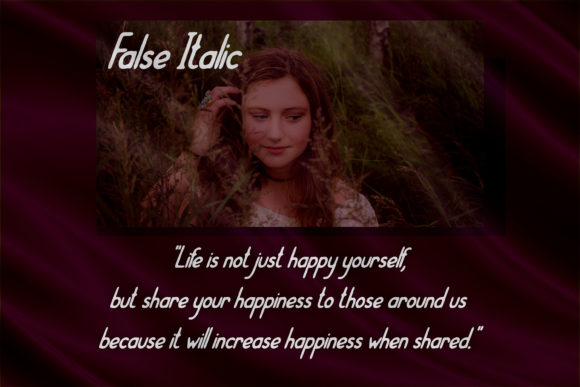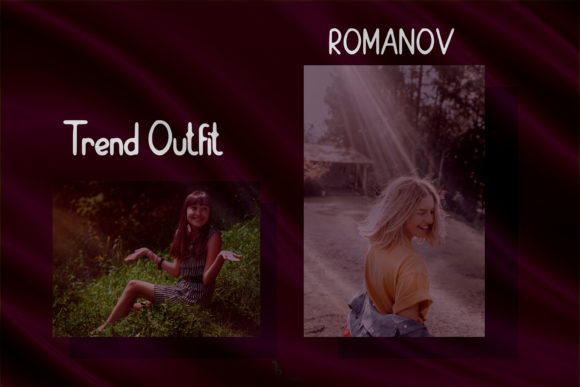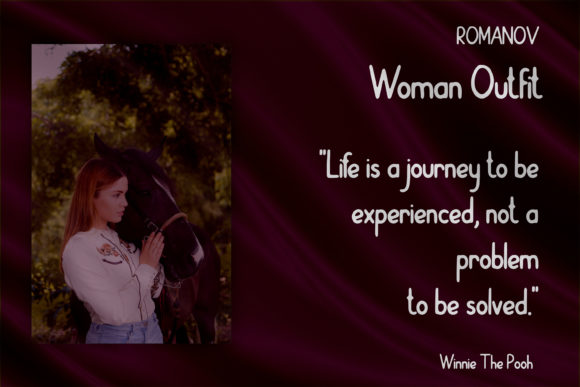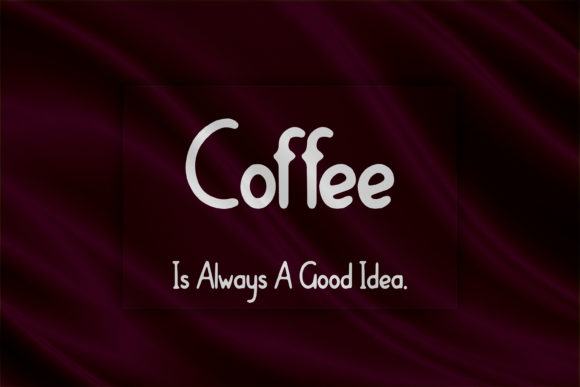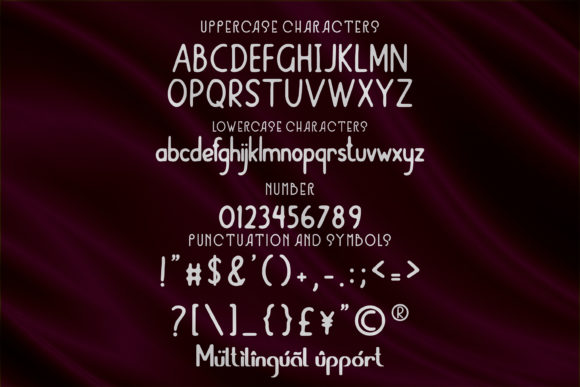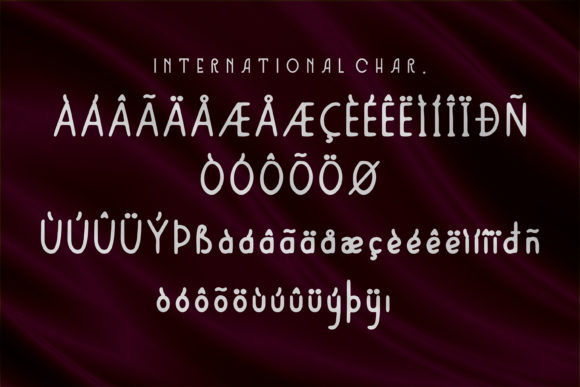
Introducing False Note Font: Elevate Your Designs with Elegance
Are you a designer or crafter looking for a font that exudes luxury and sophistication? Look no further than False Note Font, a stunning sans serif font that is perfect for a wide range of projects. From logos and branding to homeware designs, product packaging, and more, False Note Font is the ideal choice for anyone seeking to add a touch of elegance to their work.
What is False Note Font?
False Note Font is a beautiful sans serif font that boasts a clean and modern aesthetic. Its sleek lines and curves make it perfect for designs that require a premium feel. The font is highly versatile, allowing you to use it for various projects, including:
- Logos and branding projects
- Homeware designs
- Product packaging
- Mugs and ceramics
- Quotes and posters
- Shopping bags and t-shirts
- Book covers and name cards
- Invitation cards and greeting cards
- Labels and photography
- Watermarks and special events
Why Choose False Note Font?
There are many reasons why False Note Font stands out from the crowd. Here are just a few:
- Unique and Modern Design: False Note Font features a unique and modern design that will set your work apart from the competition.
- Highly Versatile: The font is highly versatile, making it suitable for a wide range of projects and applications.
- Elegant and Sophisticated: False Note Font exudes elegance and sophistication, making it perfect for luxury projects.
- Easy to Read: The font is clear and easy to read, ensuring that your message is communicated effectively.
- Experiment with Different Sizes: False Note Font looks great in a variety of sizes, from large headings to small body text.
- Play with Colors: The font looks great in a range of colors, from bold and bright to subtle and muted.
- Combine with Other Fonts: False Note Font pairs well with other fonts, allowing you to create unique and interesting combinations.
| Font Name | False Note Font |
| Author | mahstudios |
False Note Font is a stunning sans serif font that is perfect for designers and crafters looking to add a touch of elegance to their work. Its unique and modern design, highly versatile nature, and elegant and sophisticated feel make it an excellent choice for a wide range of projects. Whether you’re working on a logo, branding project, or homeware design, False Note Font is sure to impress.